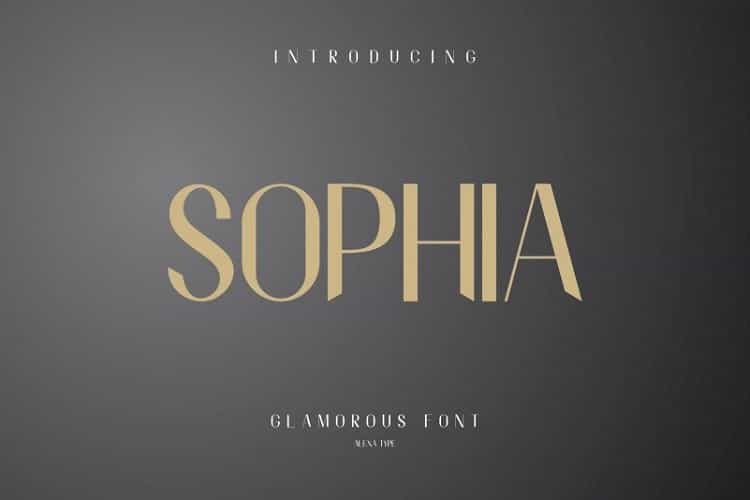
Sophia Sans is a contemporary and classy sans serif font. Sophia is simple to use, and it has a little bit of personality while still maintaining the look that is minimalistic and modern. Sophia is like a magic wand for logos, branding and headlines – I hope that you will enjoy using it as much as I loved designing it!